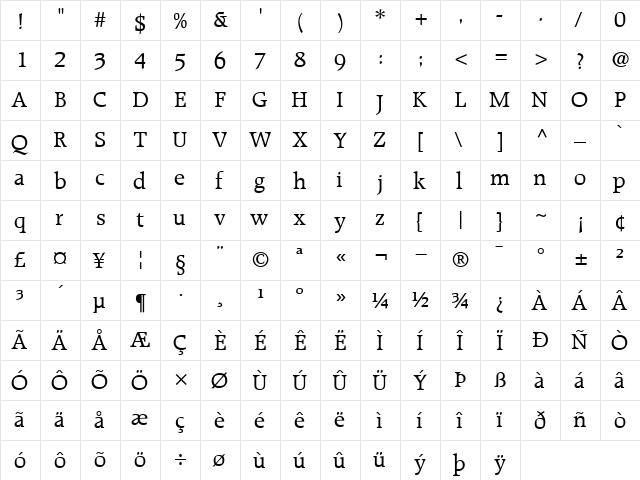
Raleigh Roman
Design Context for Raleigh Typeface
Raleigh is a composed and adaptable typeface that performs quietly and consistently across a wide range of design contexts.